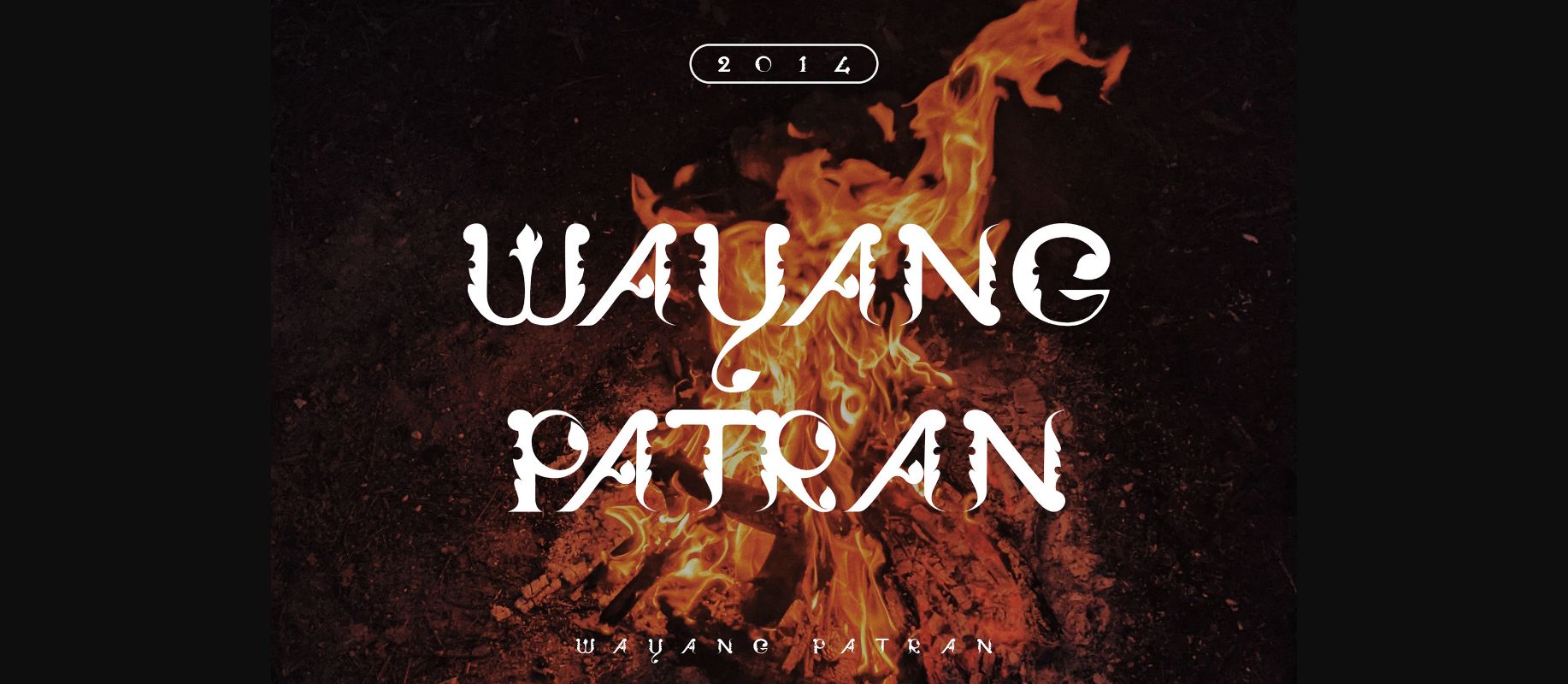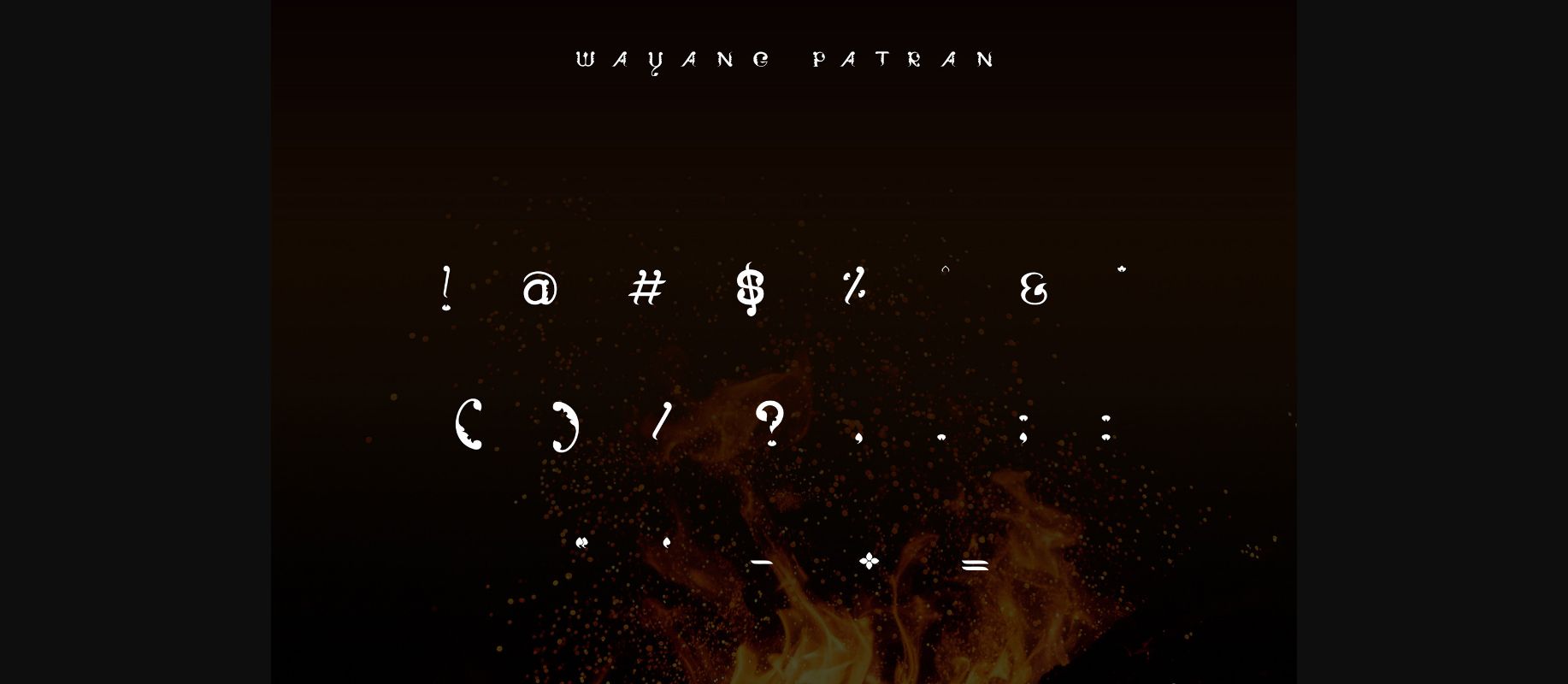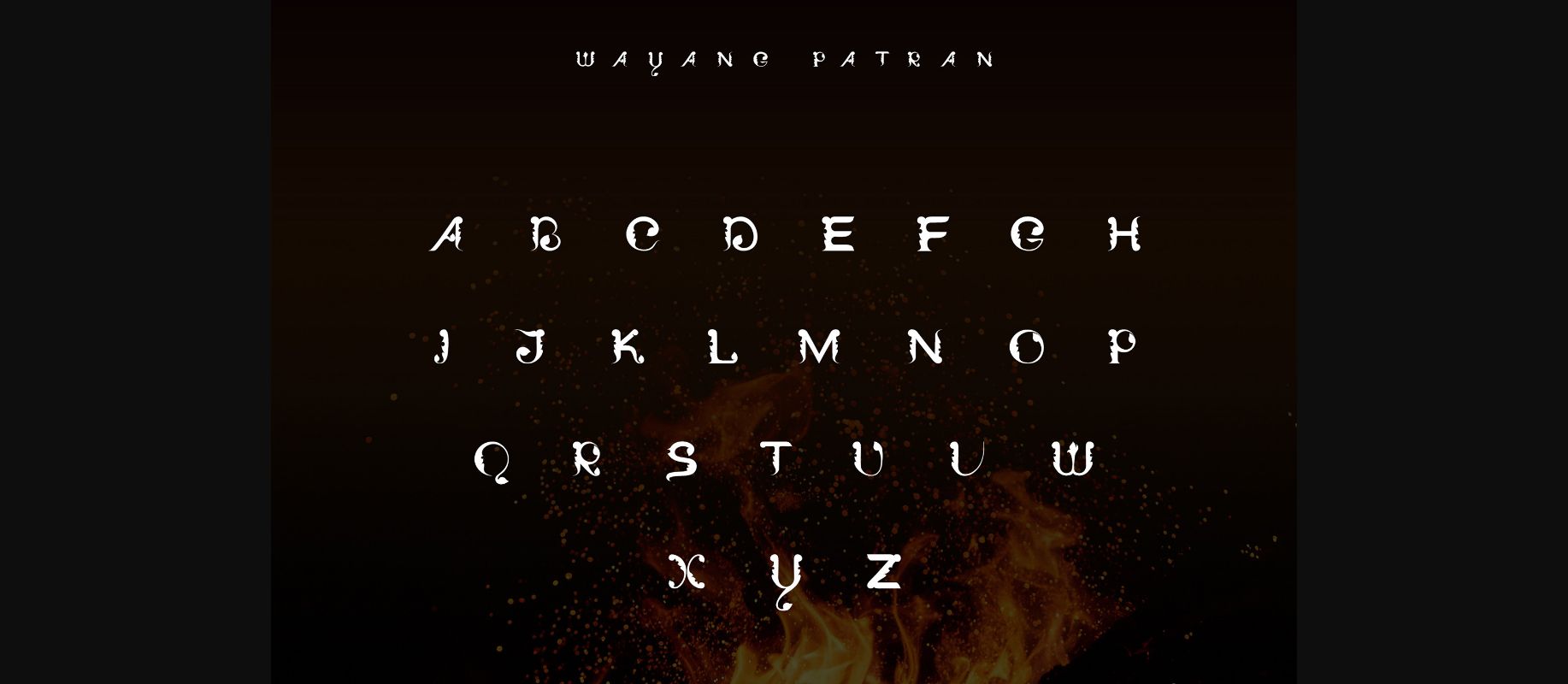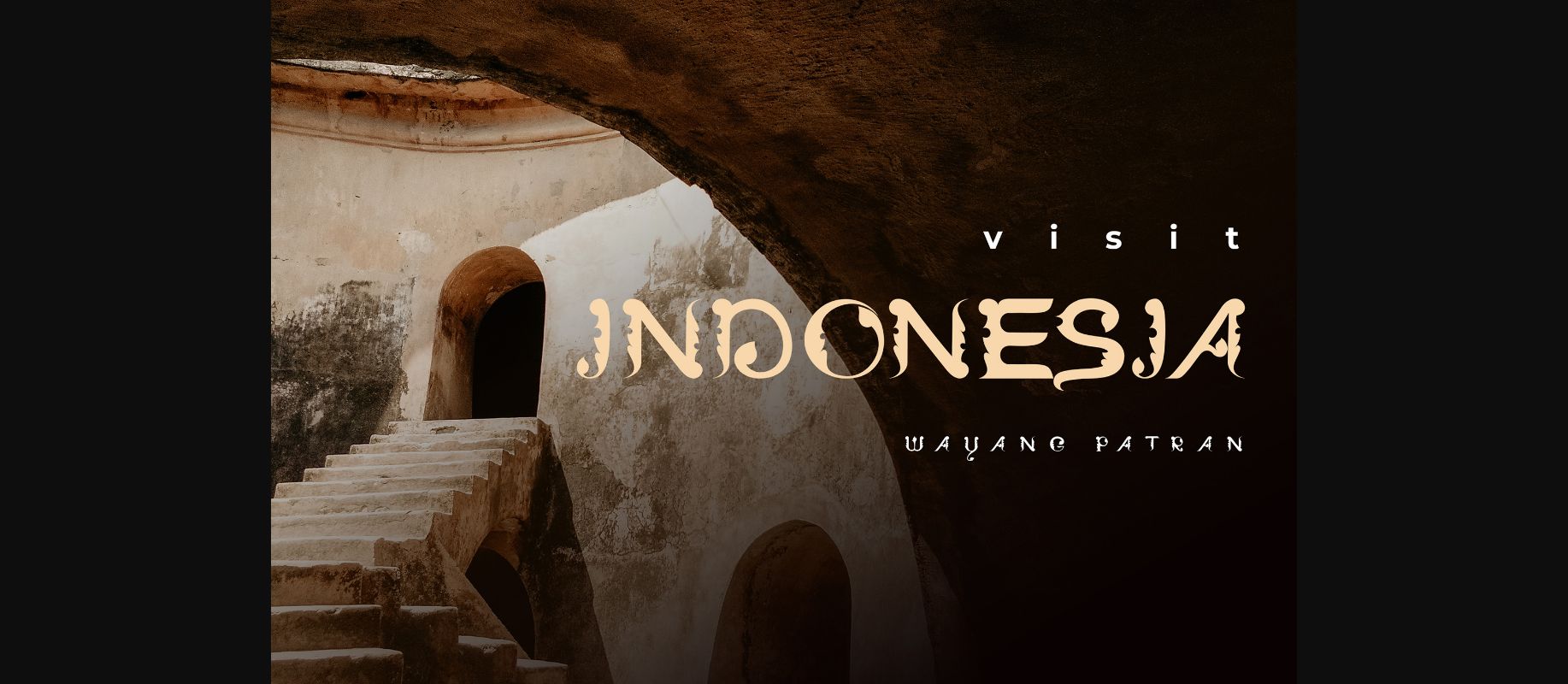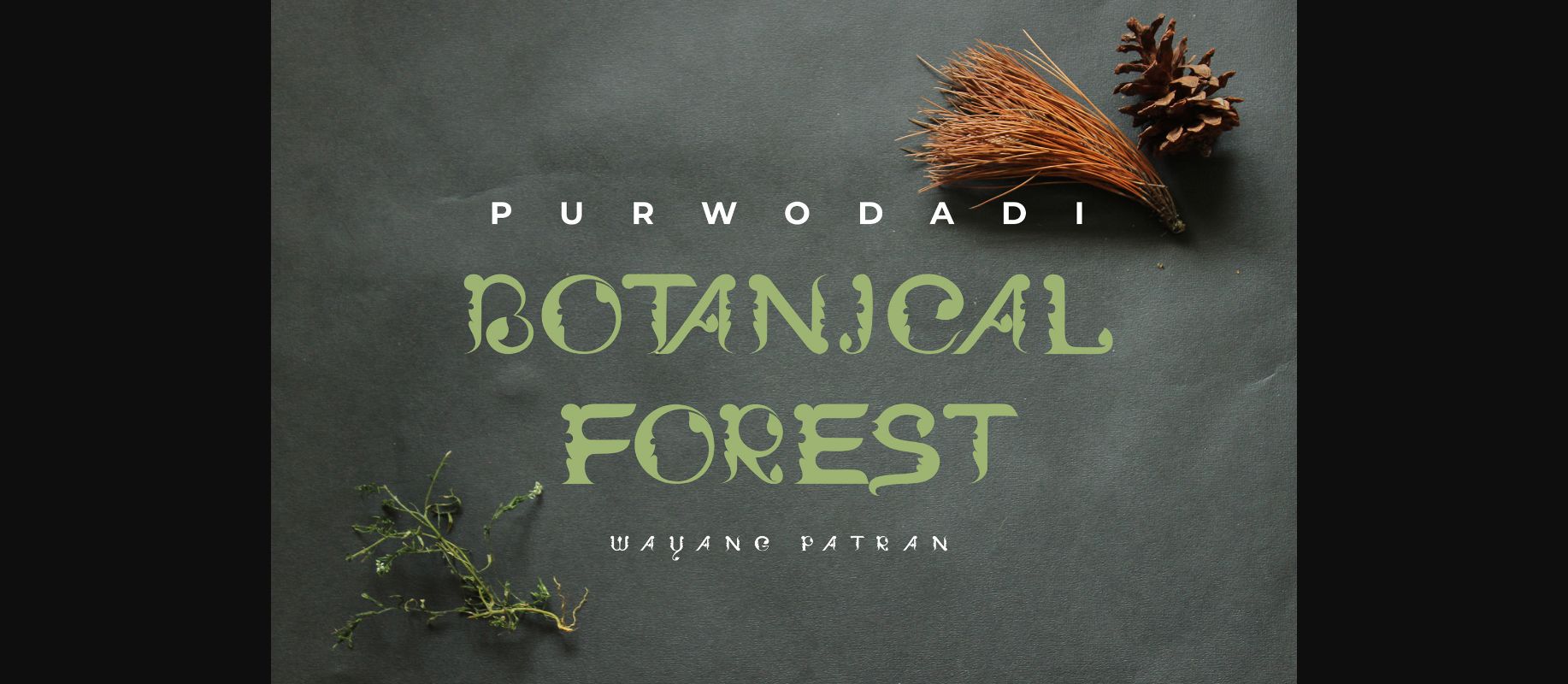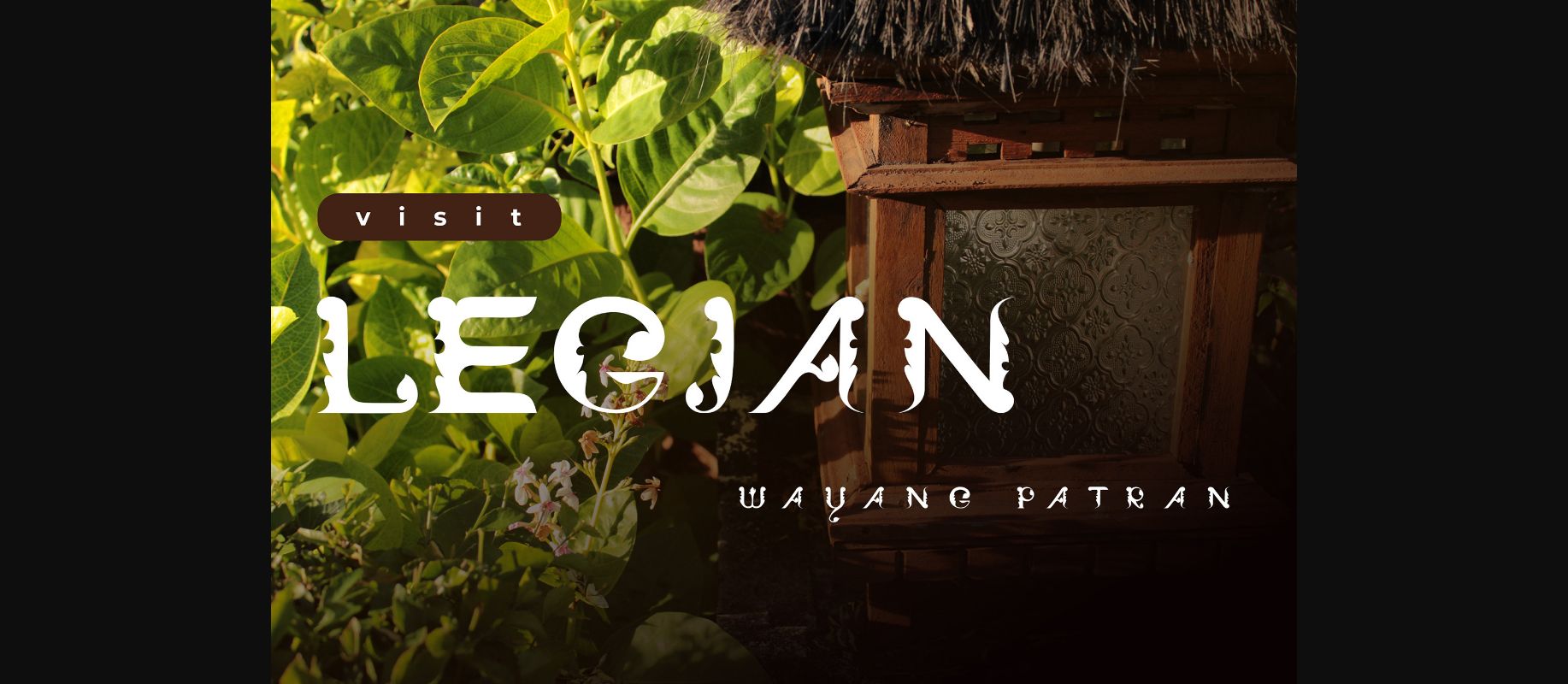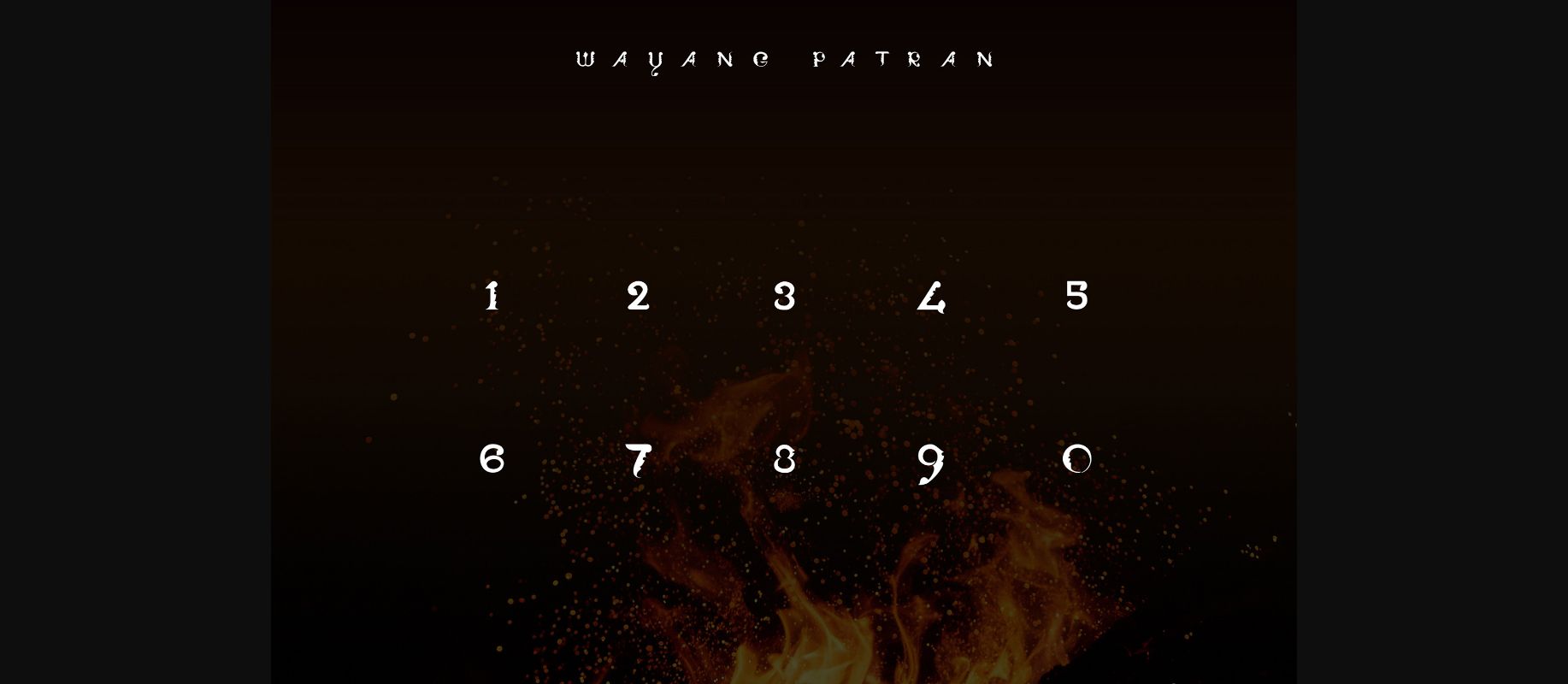
Wayang Patran Font
About Wayang Patran Font
Wayang Patran is an incredibly cool and uniquely designed decorative font, featuring characters made out of flames. This original look will appeal to a wide range of crafty ideas, from letterheads and titles, to stationery.